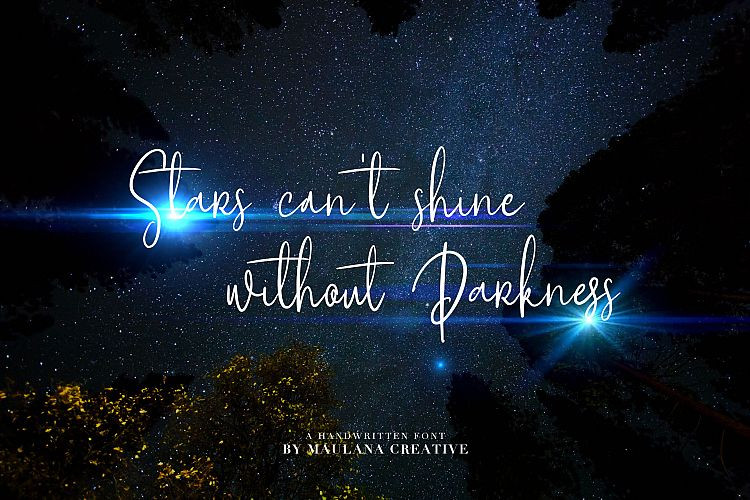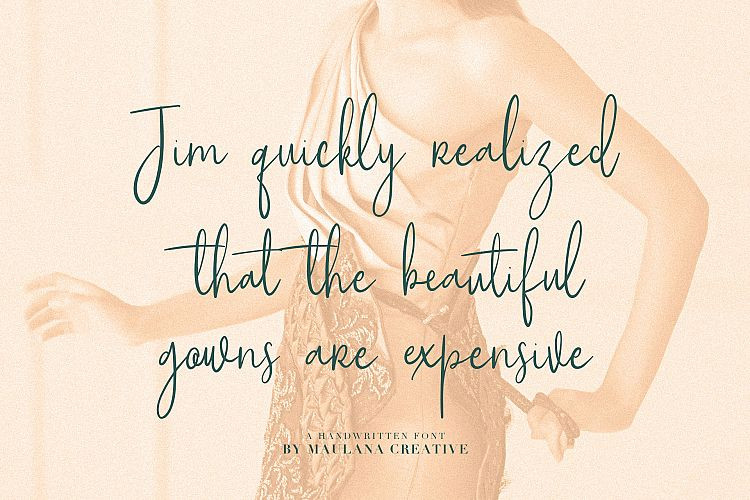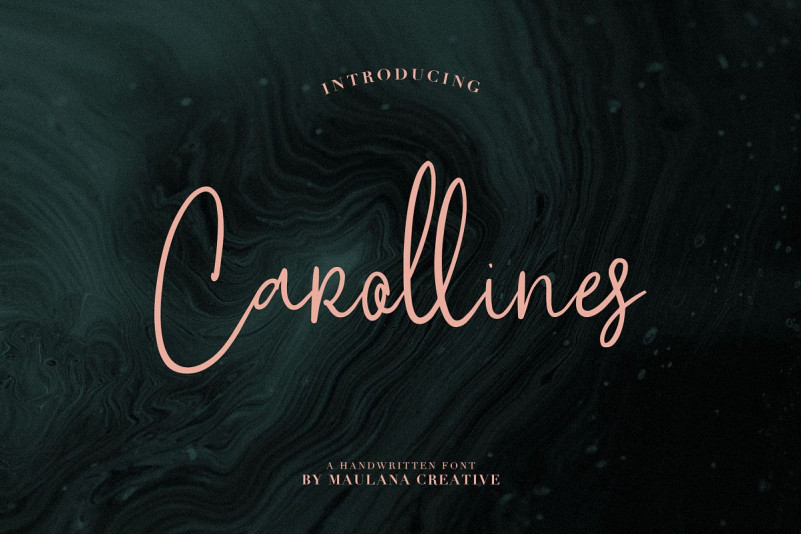
Give your designs an authentic handcrafted feel. “Carollines” is perfectly suited to signature, stationery, logo, typography quotes, magazine or book cover, website header, clothing, branding, packaging design and more.